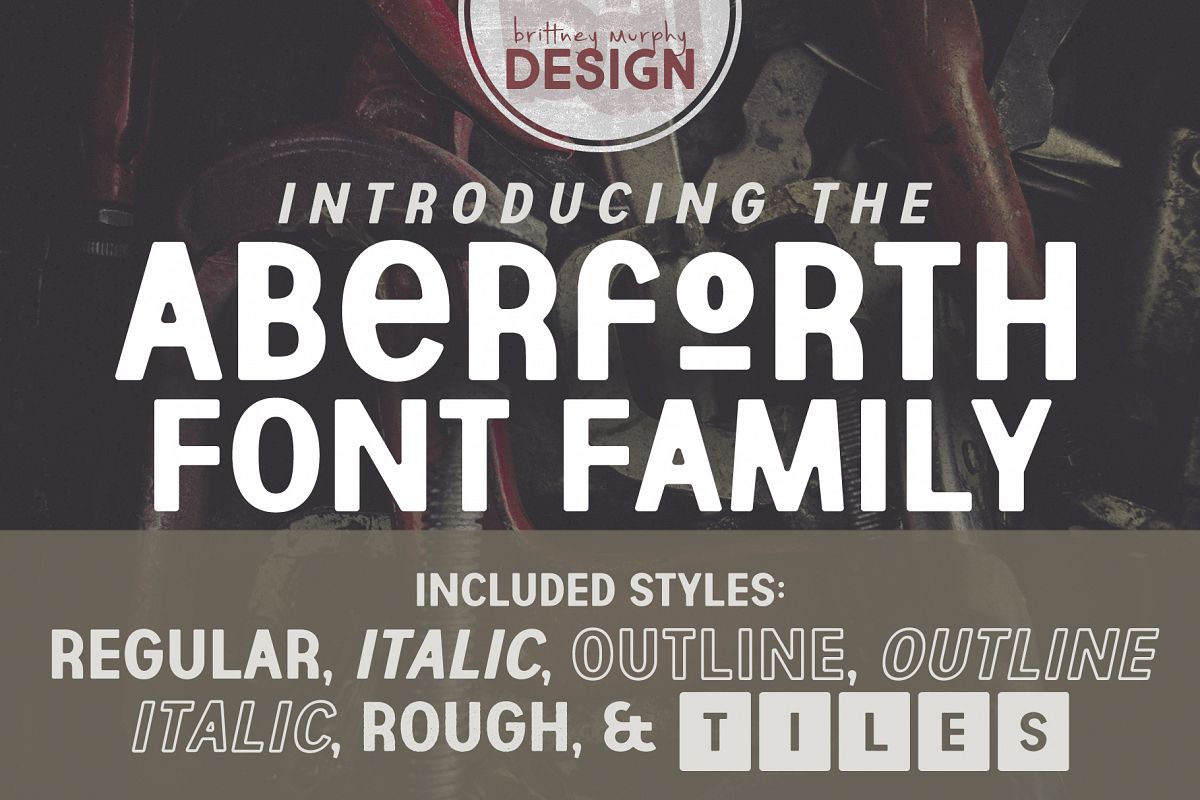
Aberforth
Aberforth Tiles
Aberforth Italic
Aberforth Outline
Aberforth Outline Italic
Aberforth Rough
Aberforth is a sans-serif font family with 7 styles. It's a clean, mixed-case font family that's mono-height, so it pairs well with other fonts. The family includes regular, rough, outline, tiles, and italic versions. It contains 390+ glyphs including alternates, ligatures, as well as multi language support. The downloads include both TTF and OTF versions.